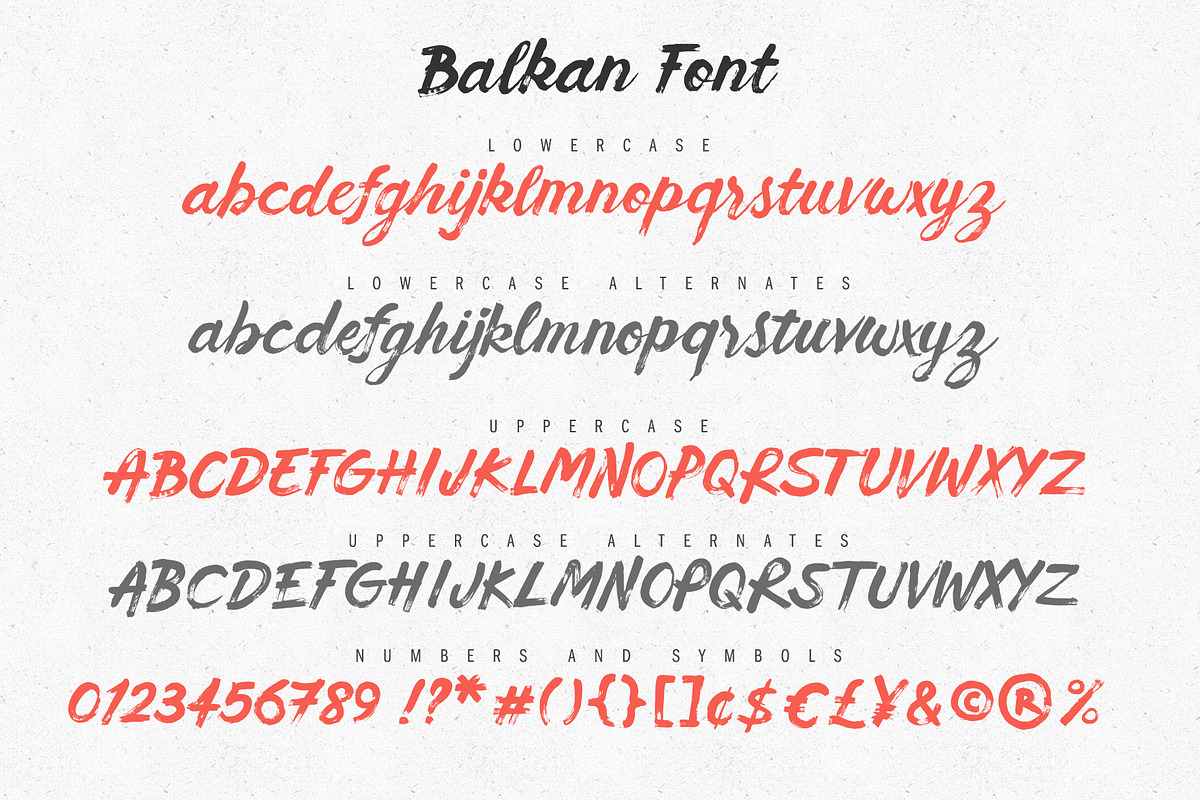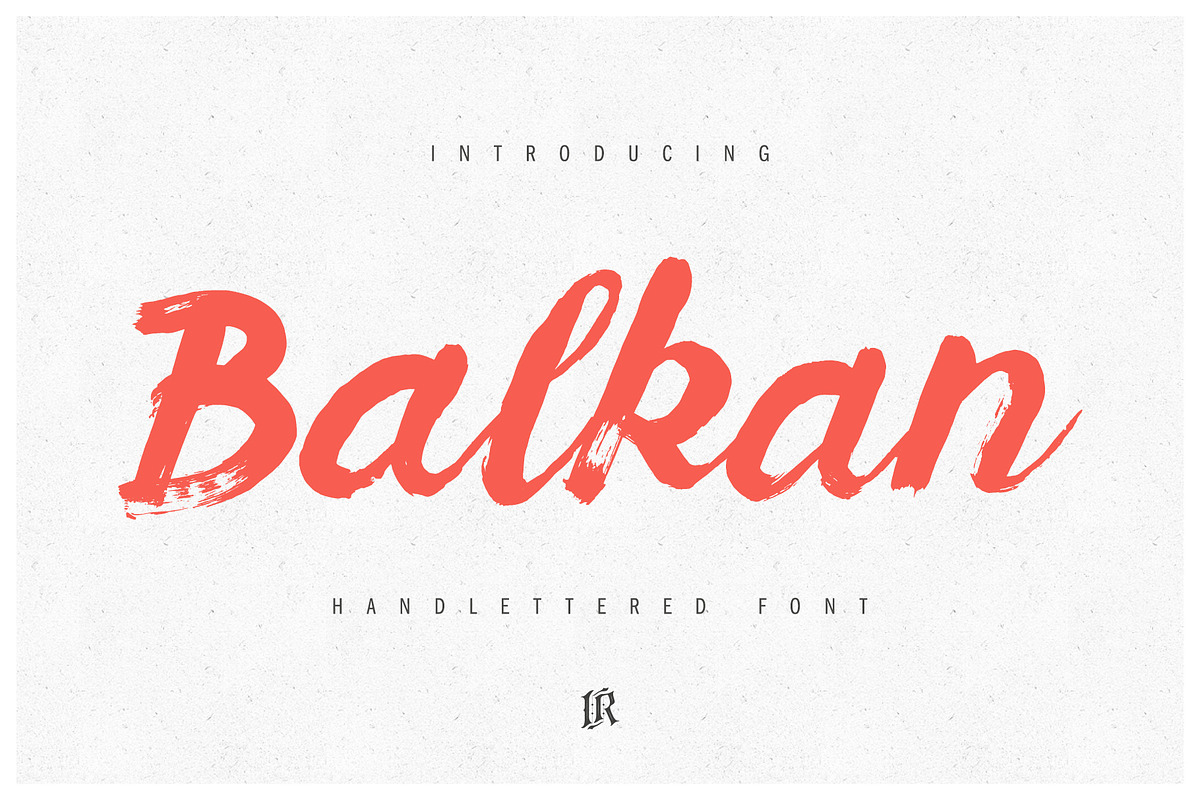
Balkan Font
Balkan is a casual hand lettered script font focused to readability. Include multilingual support for Western and Central Europe. Is ideal for posters, webdesign, invitations, baby showers, blog website, instagram, branding, business cards, and many more. Balkan font also include complete set of alternates for lowercase and uppercase characters.
Balkan Font contains multilingual support:
AÁĂÂÄÀĀĄÅÃÆBCĆČÇDÐĎĐEÉĚÊËĖÈĒĘFGĢHIÍÎÏÌĪĮJKĶLĹĽĻŁMNŃŇŅŊÑOÓÔÖÒŐŌØÕŒPÞ QRŔŘŖSŚŠŞTŦŤŢUÚÛÜÙŰŪŲŮVWẂŴẄẀXYÝŶŸỲZŹŽŻ aáăâäàāąåãæbcćčçdðďđeéěêëėèēęfgģhiíîïìīįjkķlĺľļłmnńňņŋñoóôöòőōøõœpþqrŕřŗsśšş ßtŧťţuúûüùűūųůvwẃŵẅẁxyýŷÿỳzźžż